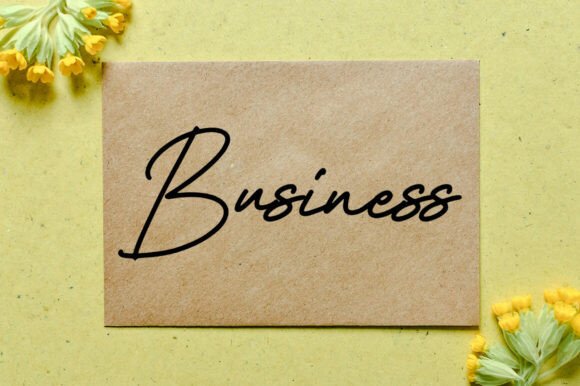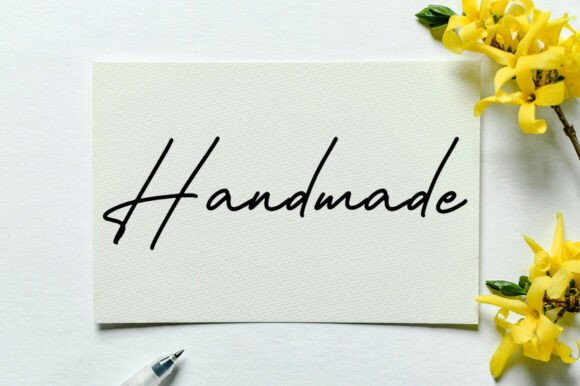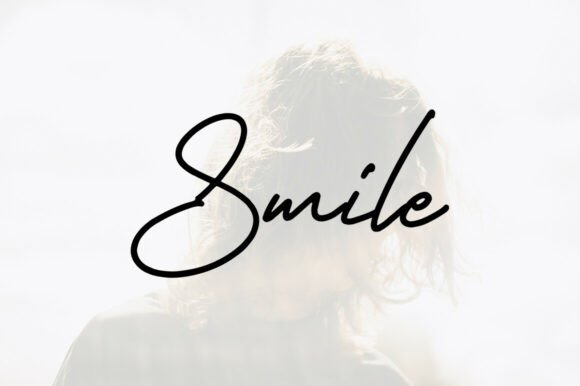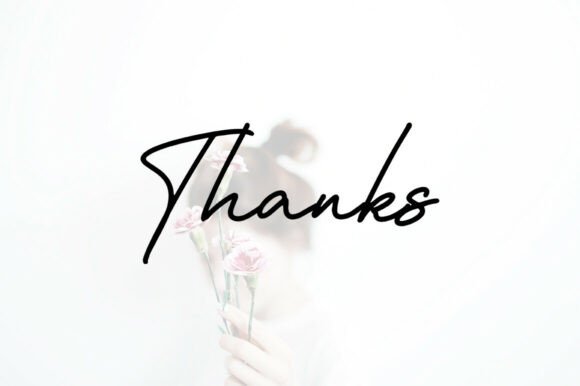
Introduction to Aurelian Font
Aurelian is a stylish and incredibly elegant handwritten font.
It looks stunning on wedding invitations, thank you cards, quotes, greeting cards, logos, business cards, and every other design which needs a handwritten touch .
Key Features of Aurelian Font
Why Choose Aurelian Font?